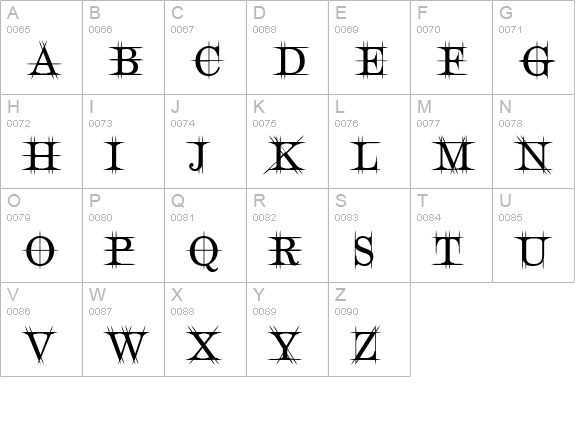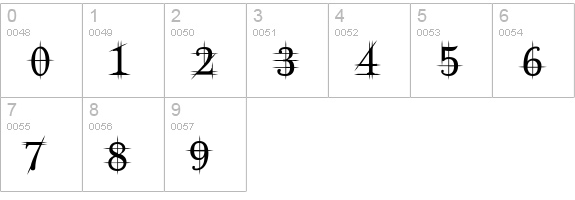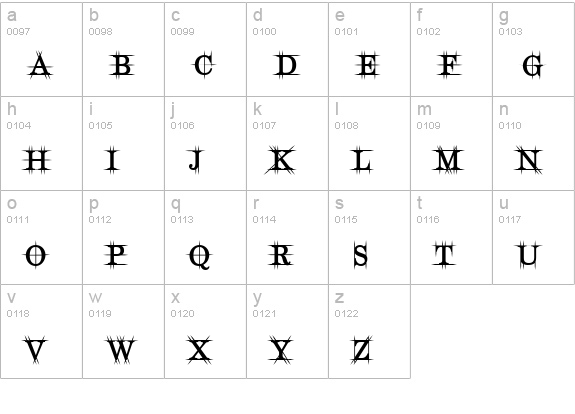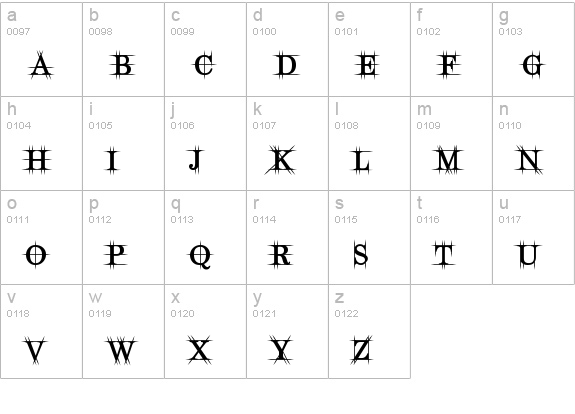
Maychurch Font Details
Maychurch font is a stunning and versatile typeface that combines classic elegance with a modern twist. Its graceful curves and clean lines make it perfect for a wide range of design projects, from invitations to branding to web design. This font exudes sophistication and charm, making it a popular choice among designers and creatives. What makes Maychurch font even more appealing is that it is available for free download at FontsMarket.com. This means that you can easily access this beautiful font without breaking the bank. Whether you are a professional designer or a hobbyist looking to add a touch of elegance to your projects, Maychurch font is the perfect choice for creating visually stunning and impactful designs. Download it for free today and elevate your designs with the timeless beauty of Maychurch font.